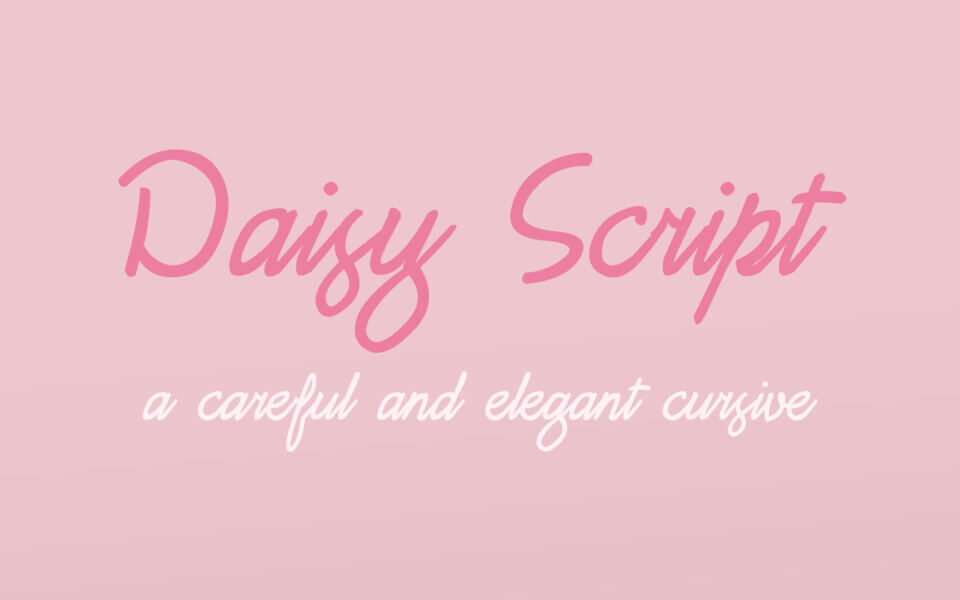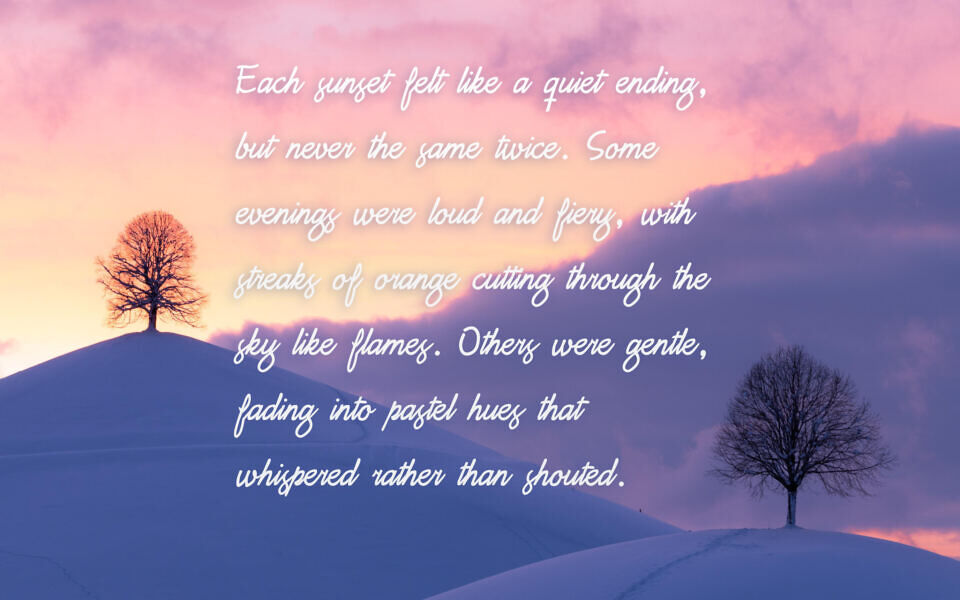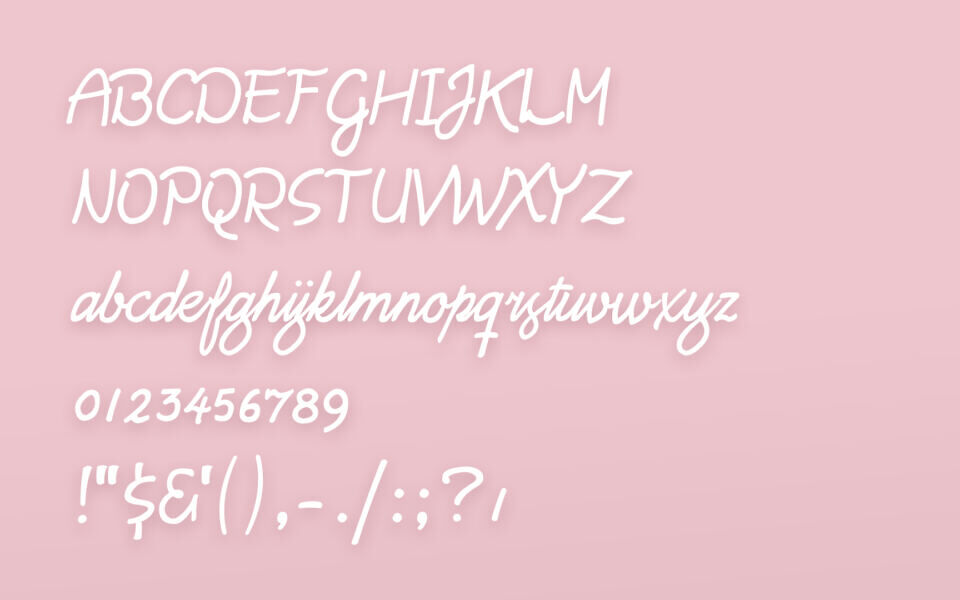
Daisy Script is a charming handwritten font by Vic Fieger, featuring smooth, flowing strokes and a natural cursive style. Its elegant loops and slight slant give it a playful yet refined look, perfect for invitations, greeting cards, logos, and personal projects.
Designed as part of a character-based font series, it captures an authentic handwritten feel while remaining clean and easy to read. The font supports Basic Latin and lacks Latin-1 Supplement and beyond.